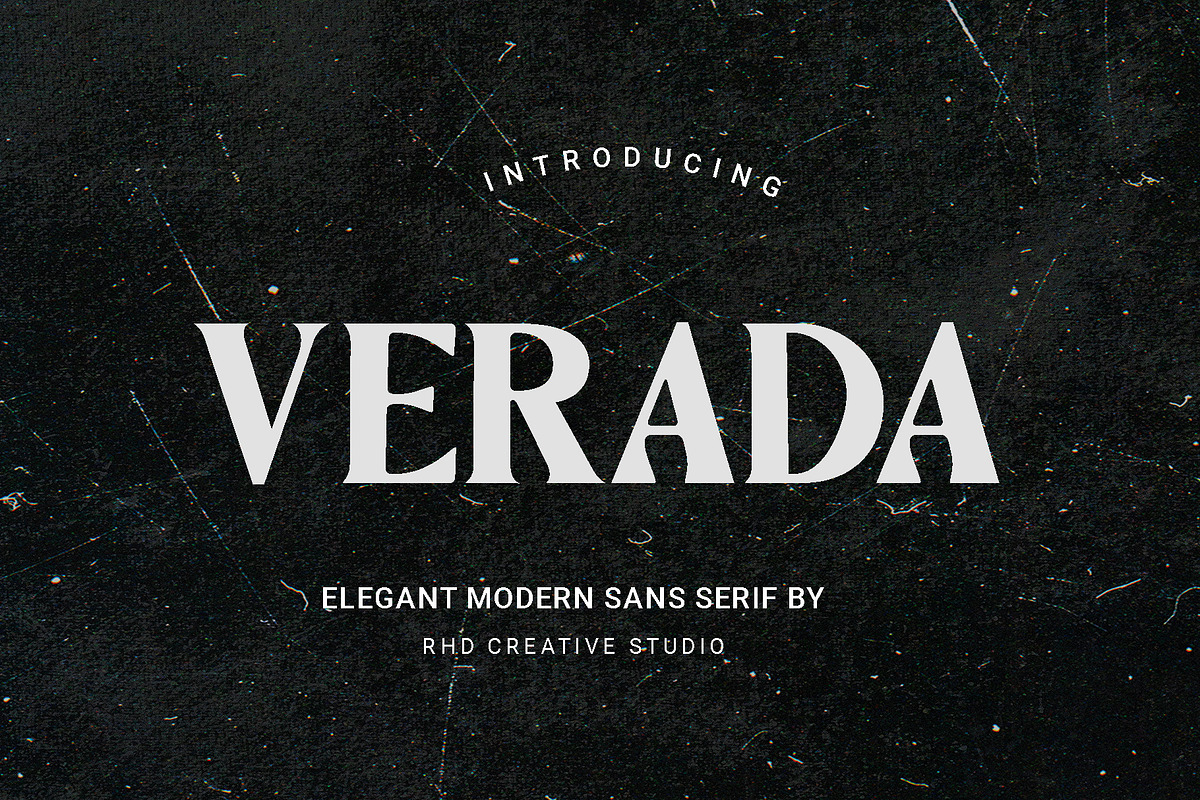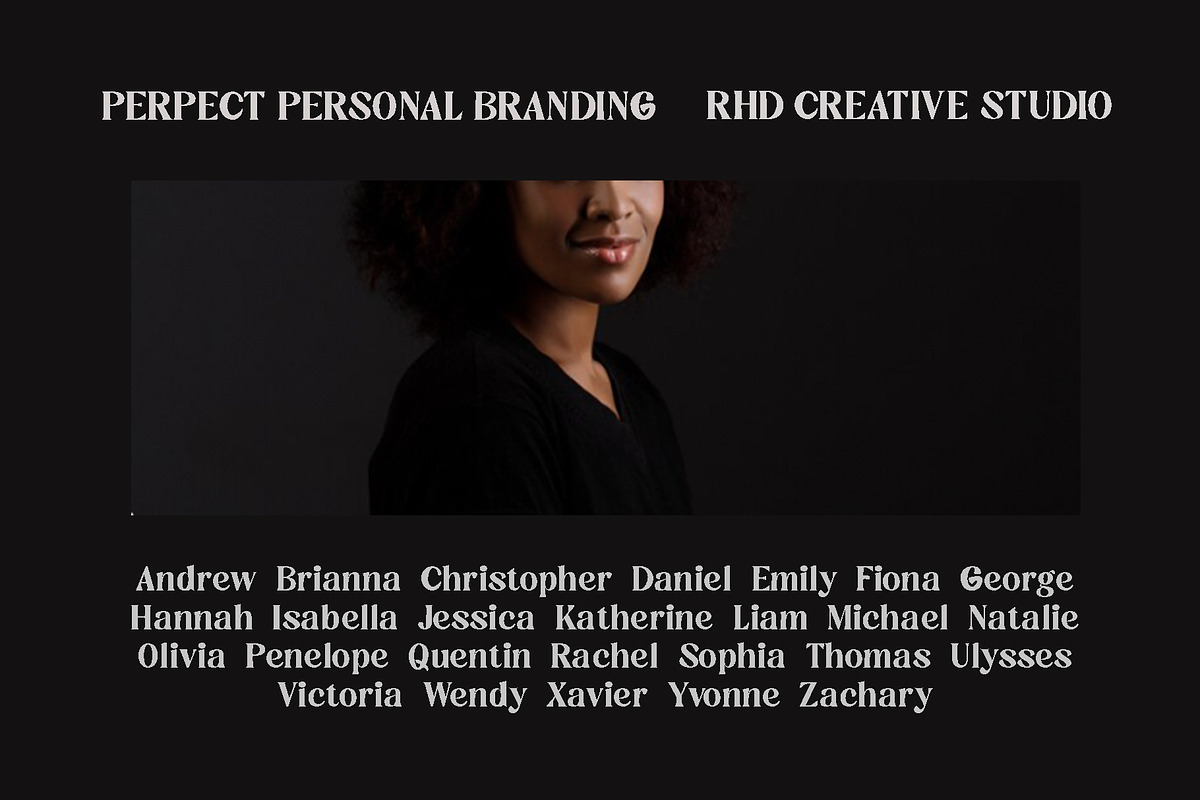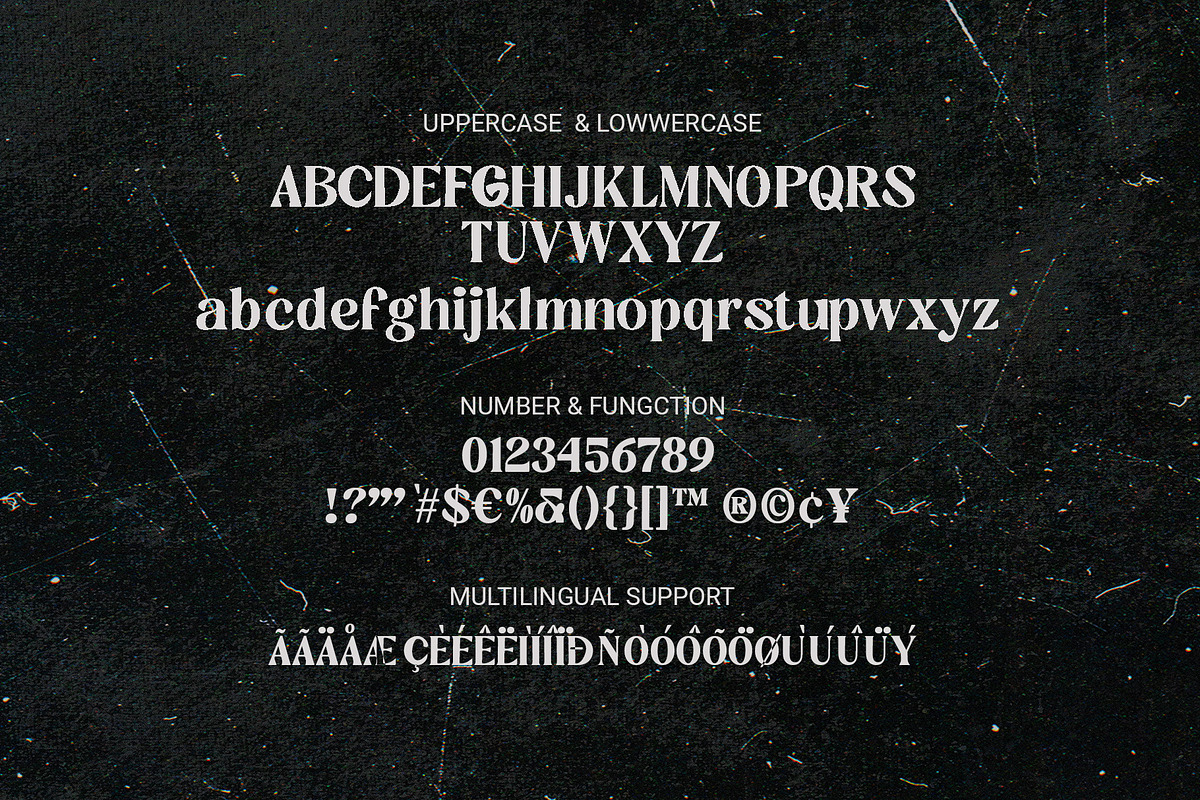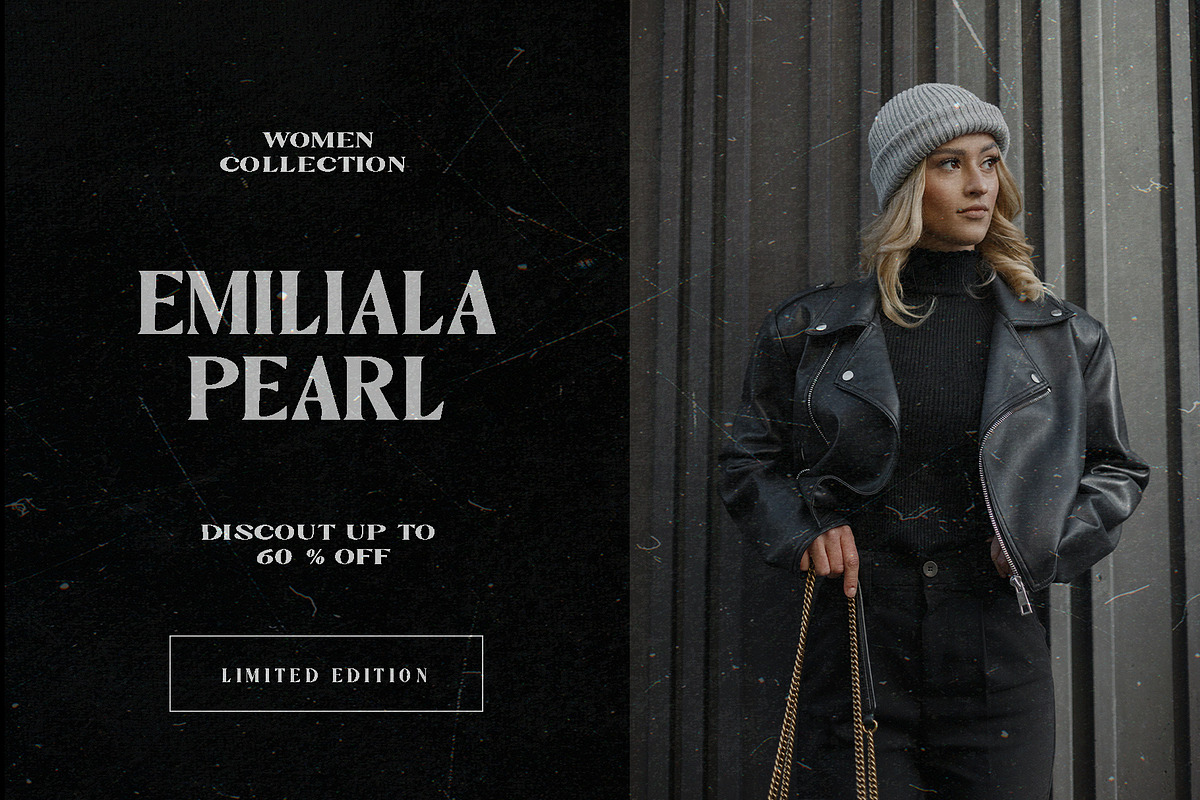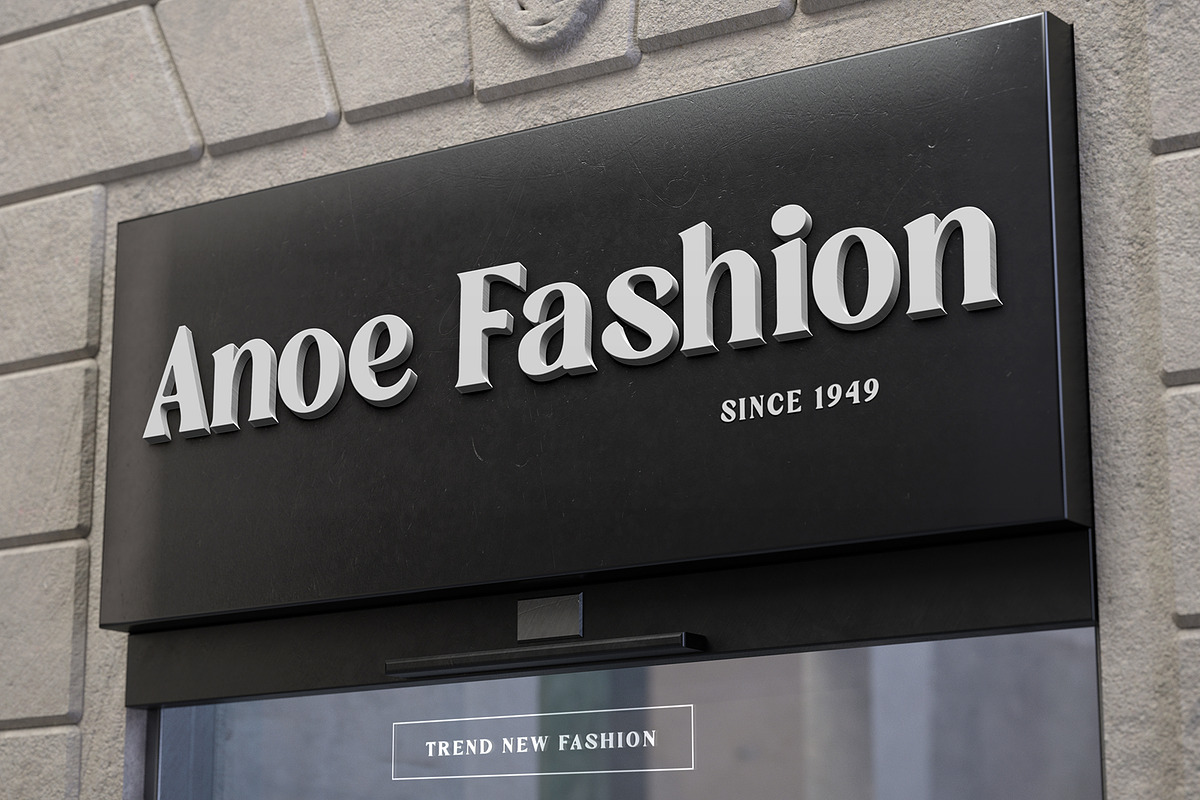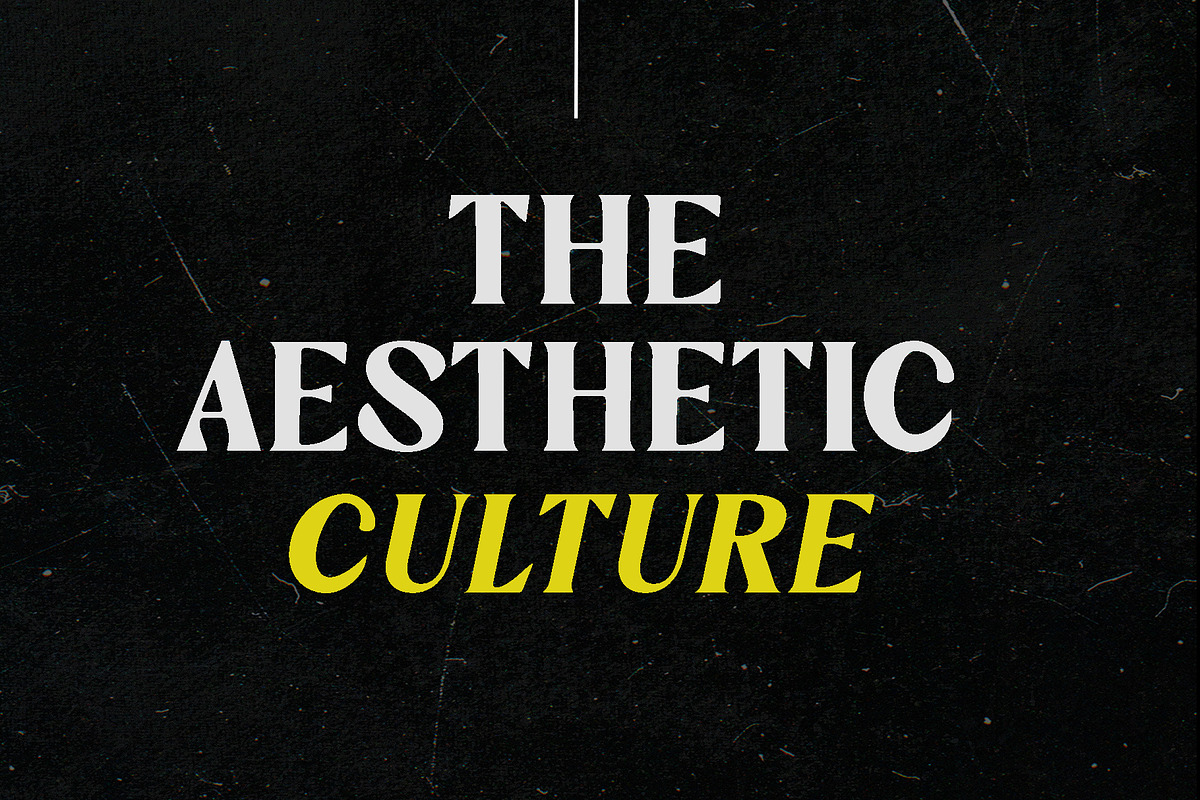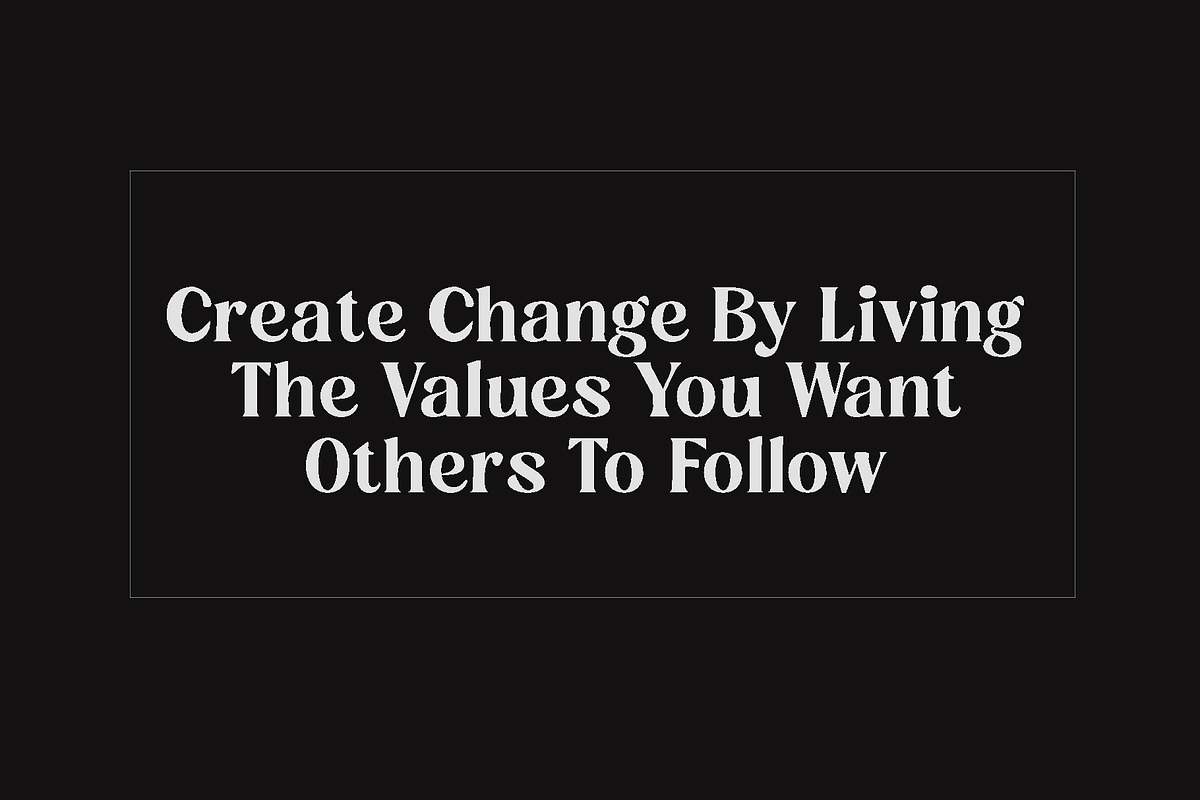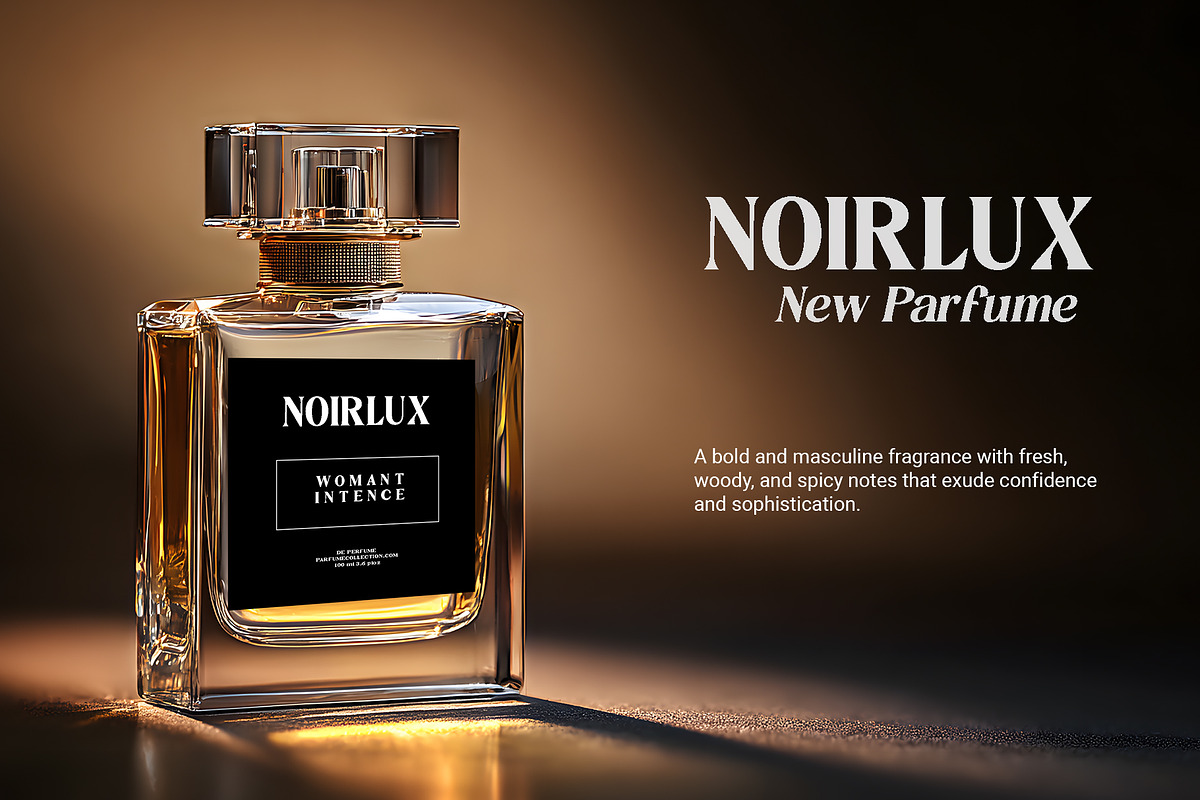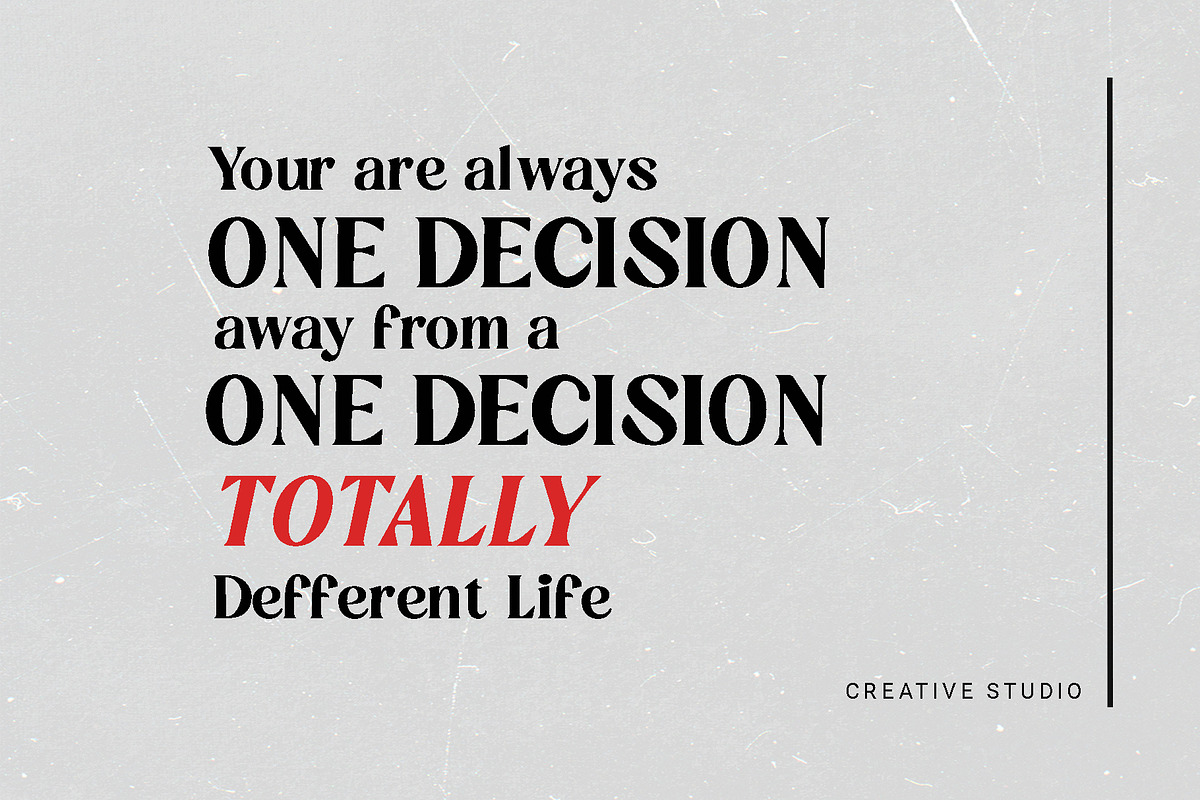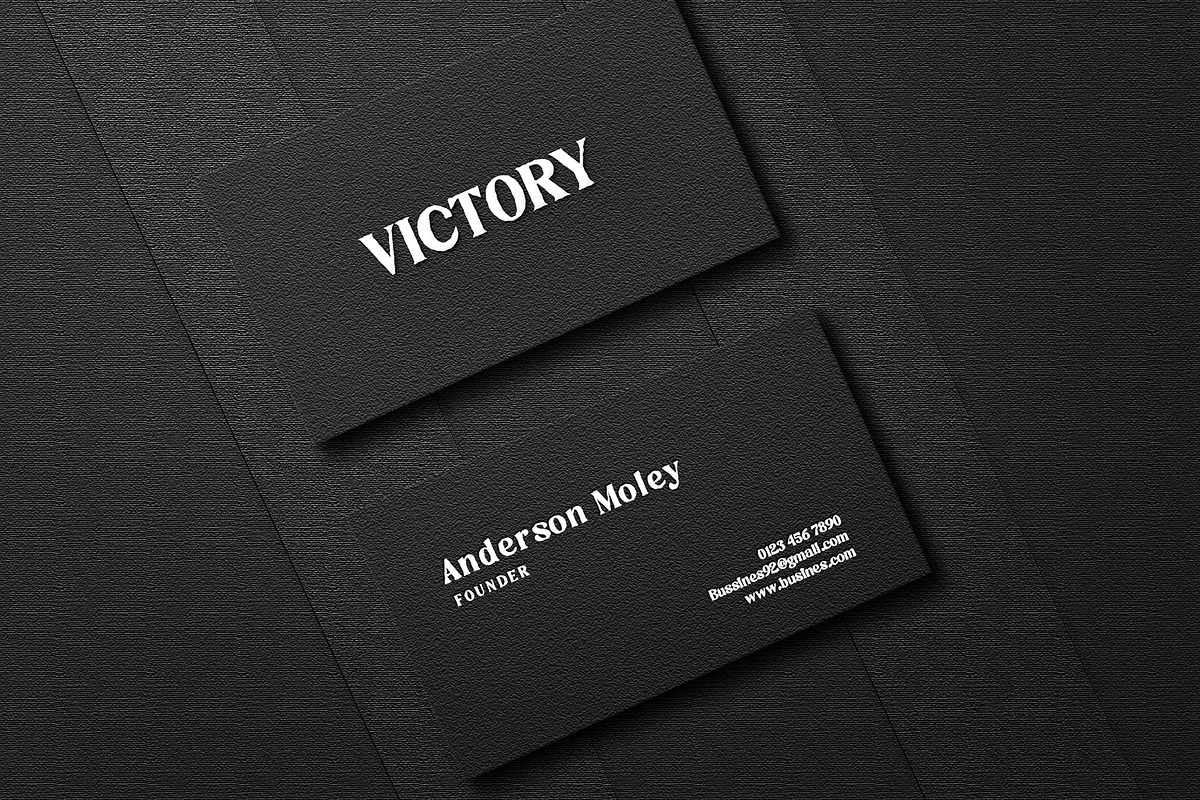
VERADA - Elegant Modern Sans Serif
Hello everyone, I would like to introduce VERADA - Elegant Modern Sans Serif Font.
VERADA - Elegant Modern Sans Serif Font with Handmade character. VERADA - Elegant Modern Sans Serif Font , Modern font to make your design project stand out! VERADA a perfectly choice for any creative endeavor, creating, modern, chic, lifestyle design such as logotype, title, cover, branding, invitations, wedding designs, display and magazine, social media posts, advertisements, printed quotes, product packaging, corporate brand, product designs, labels, photography, watermarks, special events and any other project with modern touch.
- Reguler & Italic